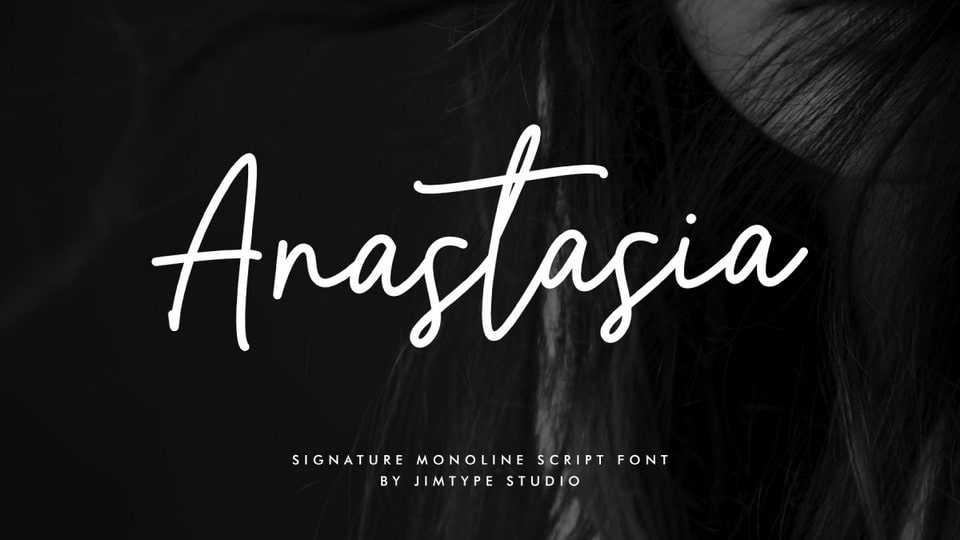
Download Anastasia font, a versatile script typeface designed to elevate your creative projects. Tailor-made for branding, logos, packaging, advertisements, and beyond.